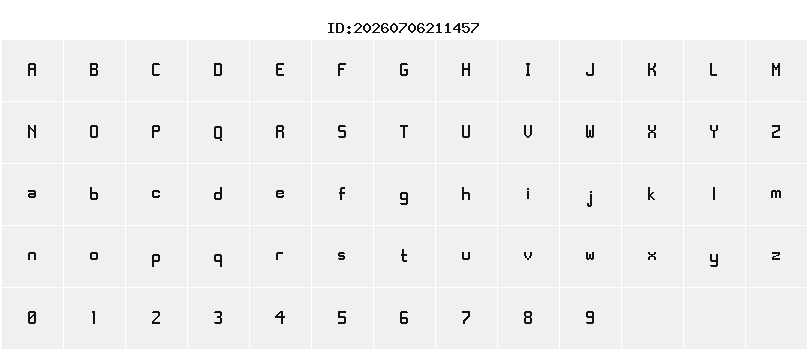
Deltoid-sans Preview
• Font Name: Deltoid-sans
• Full Font Name: Deltoid-sans Regular
• Designer: Sreekumar M
• Description: ‚ÄúDeltoid-sans‚Äù was built with FontStruct
About Deltoid-sans.ttf
Deltoid-sans.ttf is a modern, elegant sans-serif font designed for ultimate readability and visual harmony. Perfect for branding, headlines, web design, and print materials.